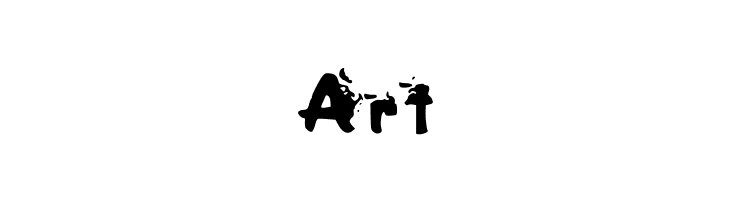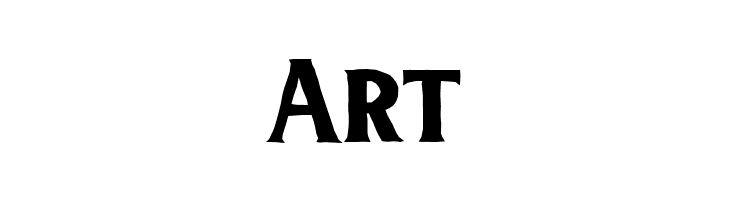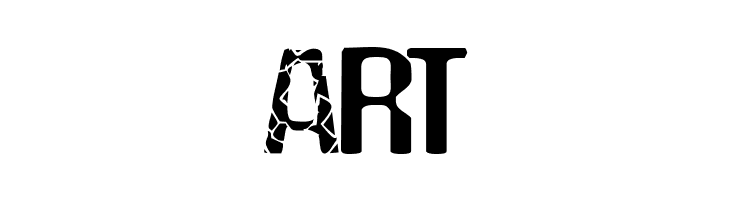
A distressed, grungy font with a rugged, eroded appearance.
A bold, decorative font with skull and crossbones motifs.
A bold and dynamic brush script font with fluid, expressive strokes.
A bold, rugged font with a hand-crafted, organic appearance.
A bold, flowing script font with elegant curves and dynamic movement.
A bold, grunge-style font with splattered, irregular edges.
A bold, grunge-style font with a splattered, distressed appearance.
A bold, cracked texture font ideal for impactful designs.
A bold, glitch-inspired font with a modern, digital aesthetic.